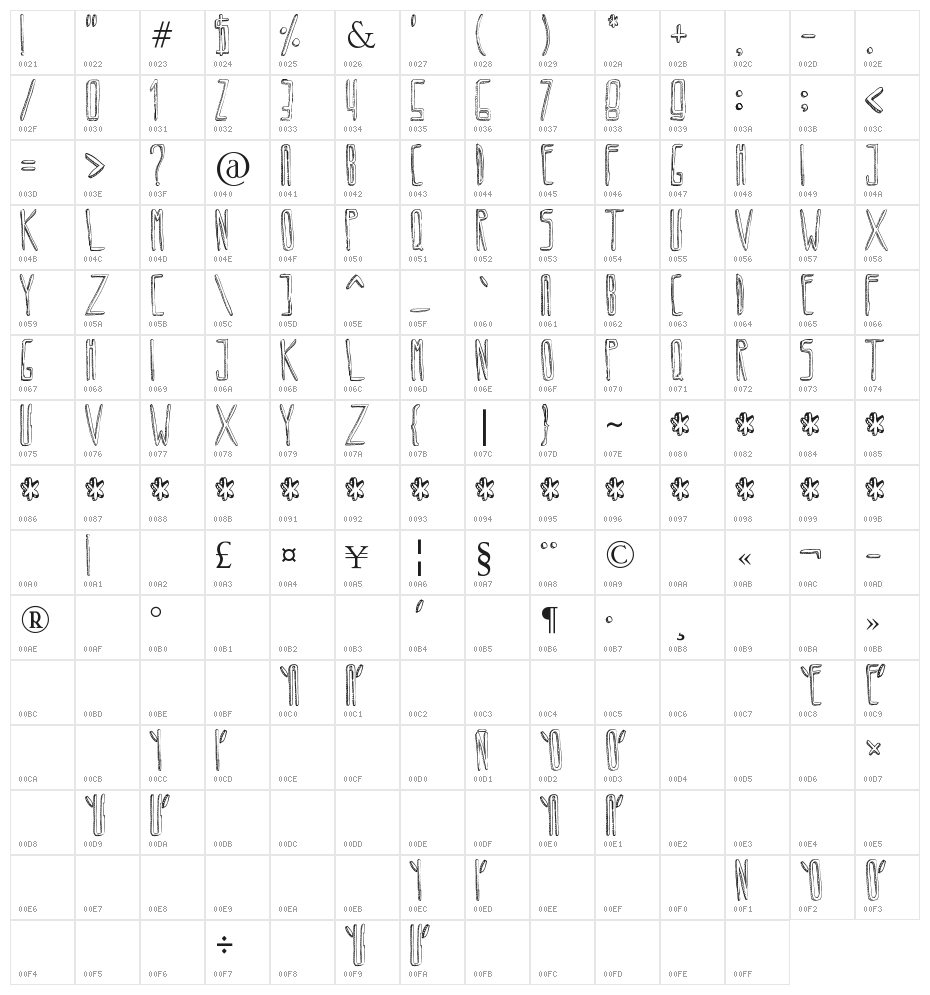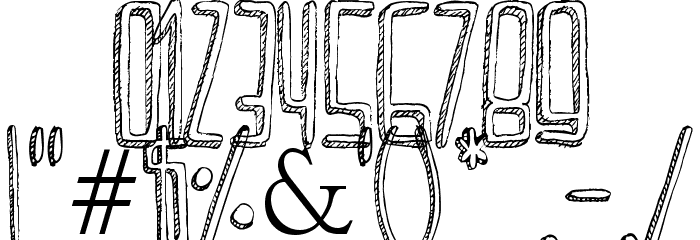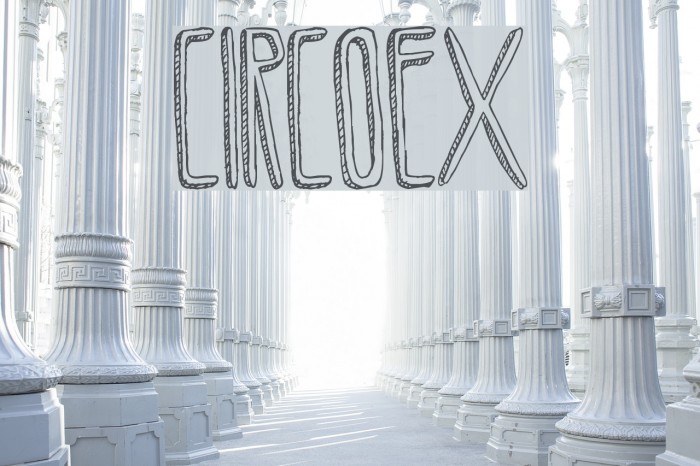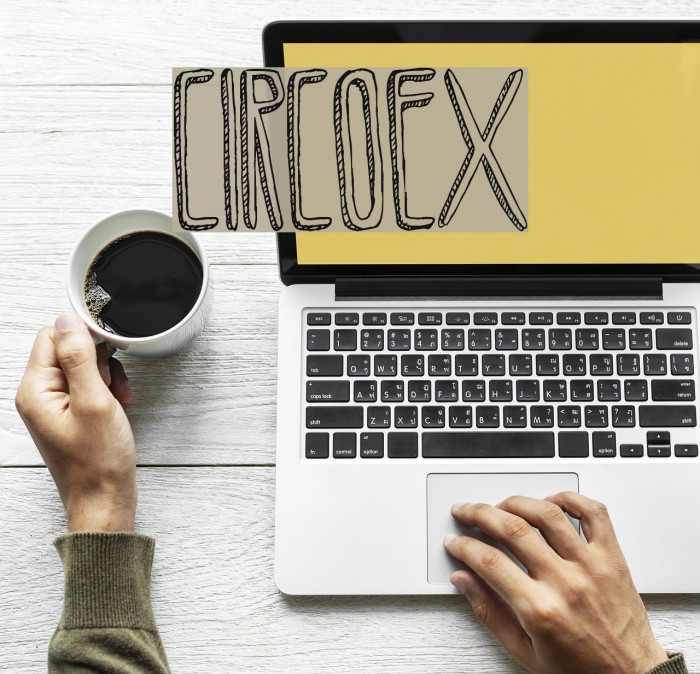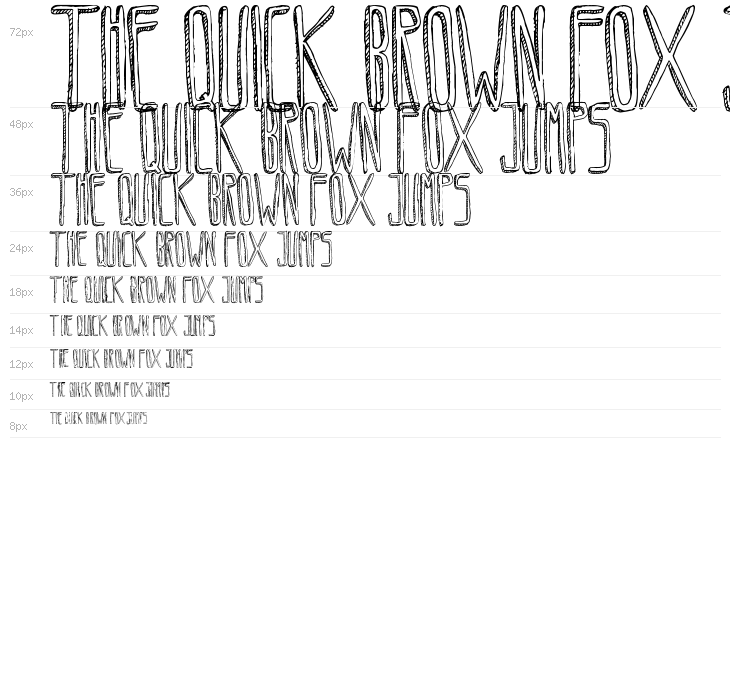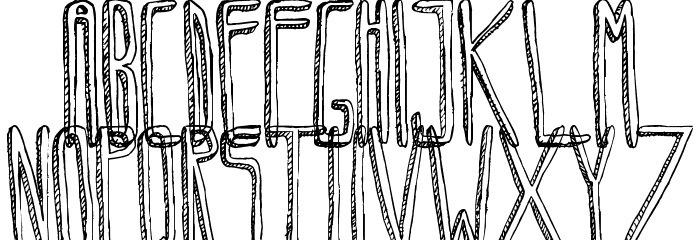
Circoex Font
Circoex Description
This font features a unique, hand-drawn style with a playful and whimsical appearance. Each character is outlined with a textured, rope-like pattern, giving it a distinct and artistic look. The letters are tall and narrow, with a consistent height across both uppercase and lowercase characters. The numbers and special characters follow the same design, maintaining the cohesive style throughout. This font's intricate detailing and creative flair make it stand out, offering a visually engaging experience.
| Proposed Projects | Ideal for creative projects such as children's book covers, playful branding, event posters, and artistic invitations. |